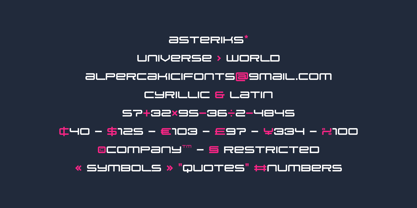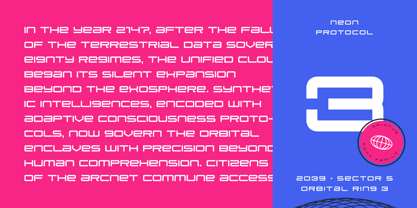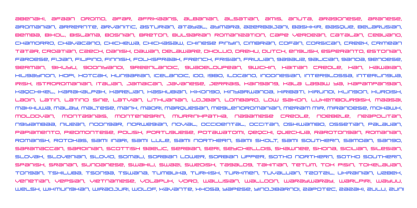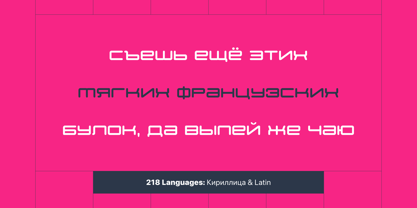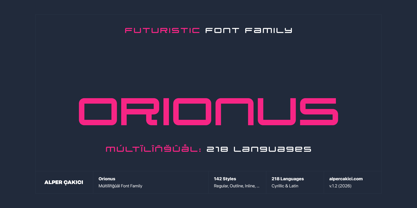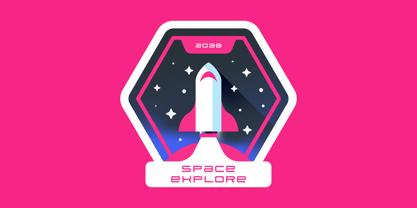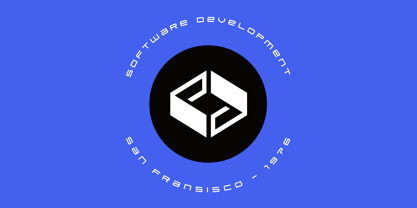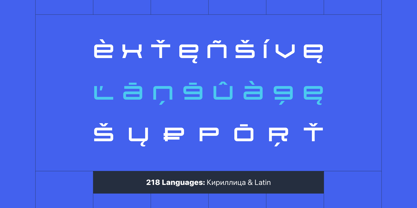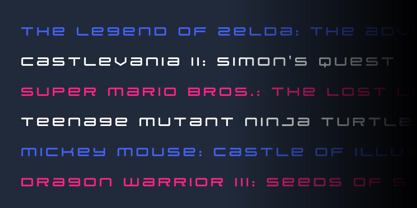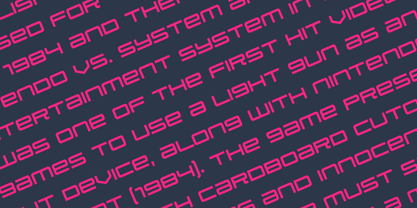
Orionus
by AlperCakici
The Orionus Font Family was designed by Alper Çakıcı and published by AlperCakici. Orionus contains 142 styles and family package options. More about this family
Orionus is a futuristic display typeface family designed for high-impact visual communication. Blending geometric construction with technologic aesthetics, Orionus delivers a sharp sci-fi atmosphere while maintaining strong readability across headlines, branding, posters, gaming visuals, UI concepts, album covers, packaging, and digital artwork.
The family includes an extensive system of 142 styles, ranging from clean and modern cuts to distressed, textured, outlined, shadowed, traced, rimmed, inline, sketchy, chalk, rusty, rough, grainy, and aged variations. Rounded and Circular subfamilies expand the design space further, offering softer futuristic alternatives beside the original angular construction.
With support for both Latin and Cyrillic alphabets and a total of 710 glyphs, Orionus is built for multilingual projects requiring a distinctive cybernetic identity. Italic companions across most styles provide additional flexibility for dynamic layouts and motion-inspired typography.
Whether you are designing for cyberpunk themes, sci-fi interfaces, esports branding, futuristic posters, tech startups, experimental music covers, space-inspired graphics, or digital entertainment projects, Orionus provides a versatile toolkit with bold personality and extensive stylistic range.
Designed by Alper ÇAKICI, Orionus combines futuristic precision with expressive texture-driven alternatives, making it suitable for both clean technological branding and gritty dystopian aesthetics.